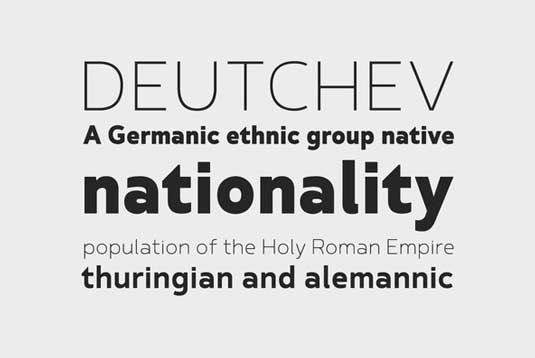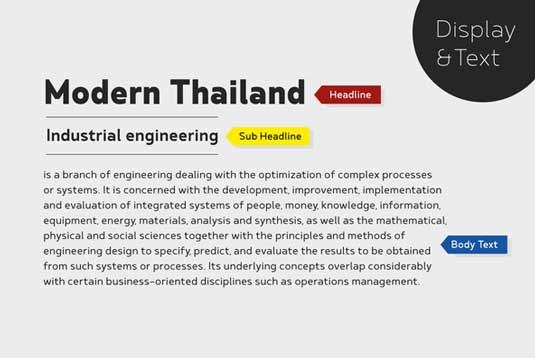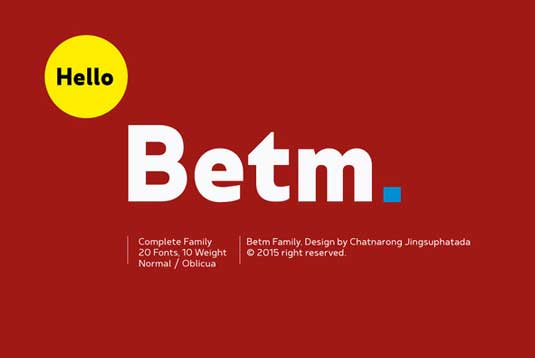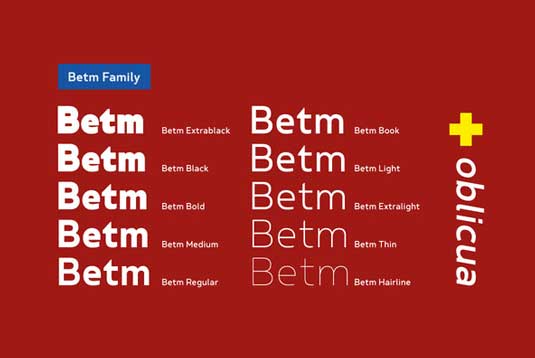
Font of the day: Betm
Betm by Chatnarong Jingsuphatada
A geometric, sans serif typeface, Betm was created by Thai type designer Chatnarong Jingsuphatada. The simple and elegant font comes with ten weights, along with an italic options to match each.